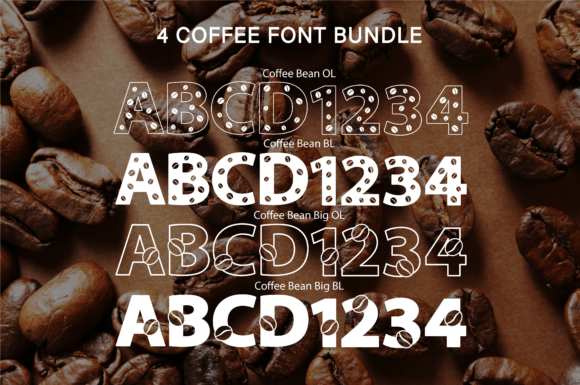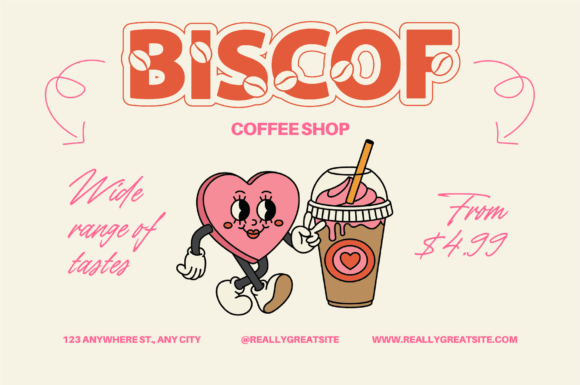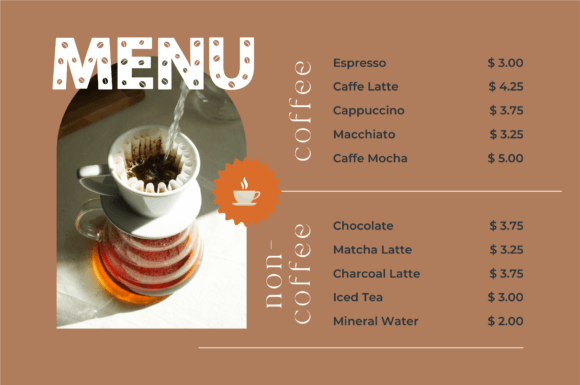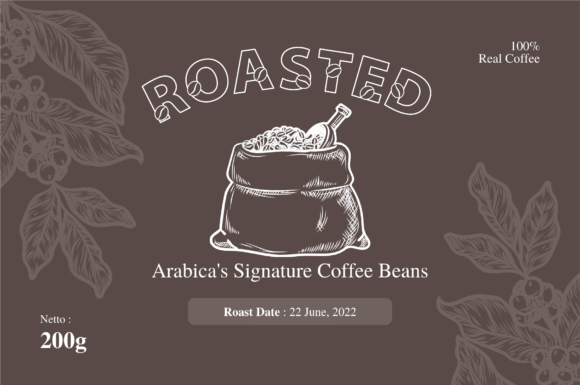
The Ultimate Coffee Bean Font: A Designer’s Dream Come True
I’ll never forget the time I was working on a coffee shop project, and my client asked me to create a menu that would make their customers feel like they’re sipping on a warm cup of joe on a cozy morning. I was stuck, scrolling through font after font, trying to find the perfect one. That’s when I stumbled upon the Coffee Bean Font, and it was love at first sight! 💕
This font bundle includes four unique fonts, each decorated with coffee bean details in outline and bold styles. It’s perfect for creating coffee menus, brand themes, online post titles, and so much more. In this article, I’ll dive into the world of Coffee Bean Font, sharing my honest review, a step-by-step guide on how to use it, and some amazing alternatives to try out.
Honest Review: What I Love and What I Don’t
The Good: ✨
- Unique and creative design, perfect for coffee-themed projects ☕️
- Four font bundle provides versatility and options ✅
- Easily readable, even in smaller sizes 📚
- Supports OpenType features and glyphs for added customization 🎨
The Not-So-Good: 🤔
- Some fonts may be too bold for certain design applications ⚠️
- Limited language support, mostly suitable for English and basic Latin characters 📝
The Story Behind Coffee Bean Font
Coffee Bean Font was designed with coffee lovers in mind. The creator, a passionate designer and coffee enthusiast, wanted to craft a font that would capture the warmth and coziness of a coffee shop. With inspiration from coffee beans, cups, and saucers, this font bundle was born ☕️
Q: Is Coffee Bean Font suitable for body text?
A: While Coffee Bean Font is beautiful, it’s better suited for titles, headings, and short paragraphs. For body text, consider a more readable font.